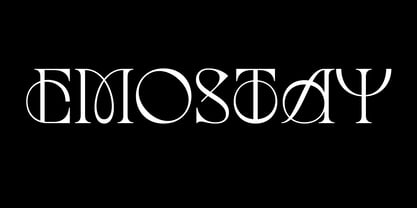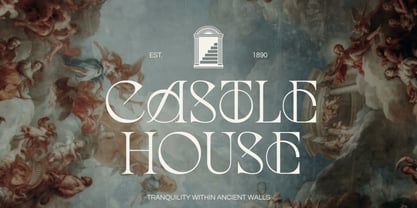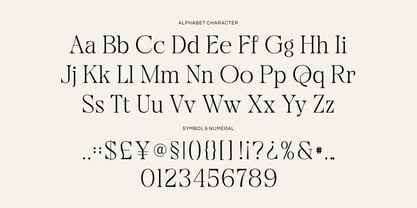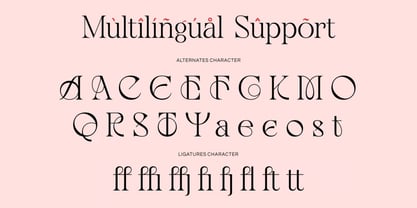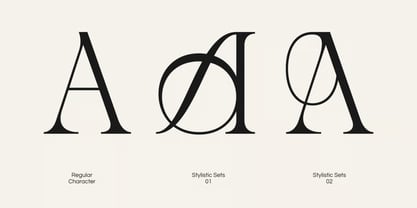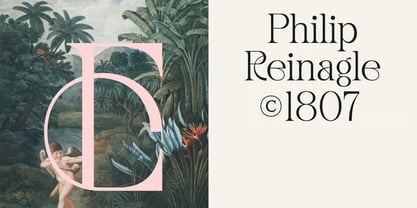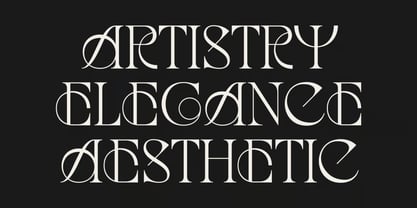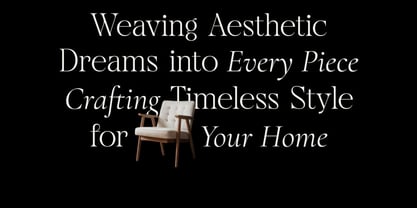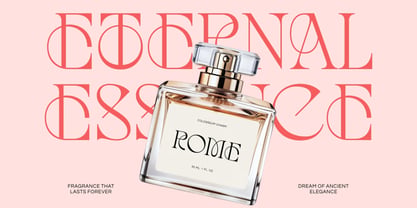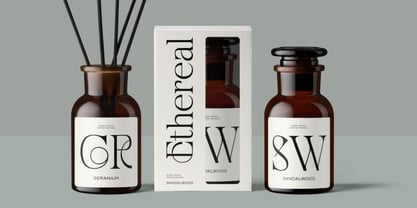
Emostay
Emostay is a modern and elegant typeface that embraces a minimalist design philosophy while delivering exceptional sophistication and versatility. Crafted with clean lines, refined details, and a contemporary aesthetic, Emostay is designed to elevate creative projects with a timeless sense of style and professionalism.
Balancing modern simplicity with luxurious character, Emostay seamlessly adapts to a variety of design applications. From premium corporate branding and luxury logos to cinematic titles, travel campaigns, editorial layouts, and lifestyle marketing, this typeface offers a polished visual identity that communicates confidence and creativity.
Its strong yet graceful appearance makes it an excellent choice for designers seeking a font that can create both bold statements and subtle elegance. Whether used for branding, advertising, packaging, or digital content, Emostay delivers a distinctive and memorable typographic experience.
✿ Key Features:
• Modern Elegant Design: Minimalist letterforms with refined luxury aesthetics.
• Clean & Professional Typography: Perfect balance between readability and visual appeal.
• Versatile Character Style: Suitable for both bold headlines and sophisticated body text.
• Contemporary Luxury Feel: Designed for premium branding and high-end visual identities.
• Timeless Aesthetic: Blends modern trends with enduring elegance.
• High-Quality Letterforms: Carefully crafted for exceptional print and digital performance.
• Creative & Functional: Ideal for a wide range of professional and artistic projects.
✿ Perfect For:
• Luxury Branding & Logo Design: Create memorable and sophisticated brand identities.
• Corporate Branding: Professional typography with modern elegance.
• Movie Titles & Cinematic Graphics: Add drama and sophistication to visual storytelling.
• Travel & Lifestyle Campaigns: Perfect for premium marketing materials.
• Editorial & Magazine Design: Ideal for headlines, covers, and feature layouts.
• Music Covers & Album Artwork: Create stylish and contemporary visual appeal.
• Restaurant & Café Menus: Enhance presentation with a refined and modern touch.
• Social Media & Advertising: Design impactful promotional content with elegance.
Elevate your design journey with Emostay—a modern elegant typeface crafted for luxury branding, corporate identities, editorial design, travel campaigns, cinematic titles, lifestyle promotions, and creative projects that demand sophistication and style.